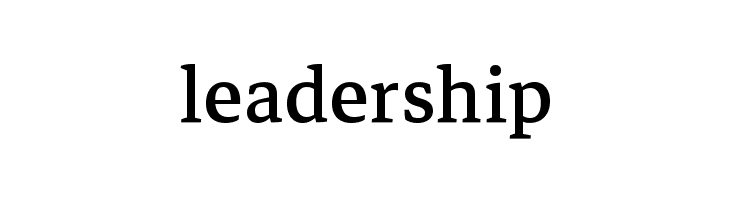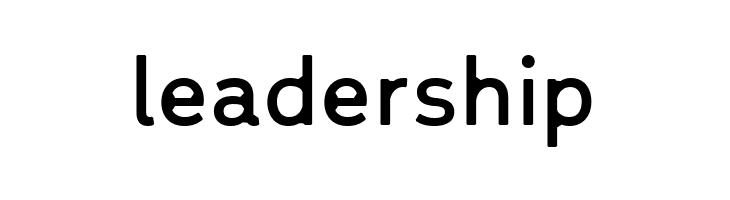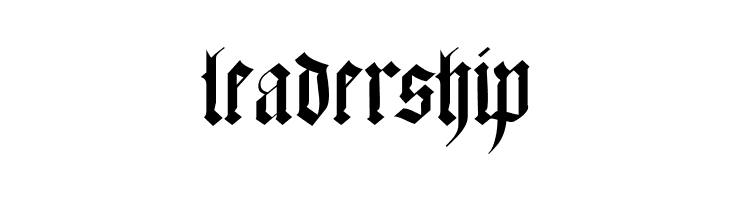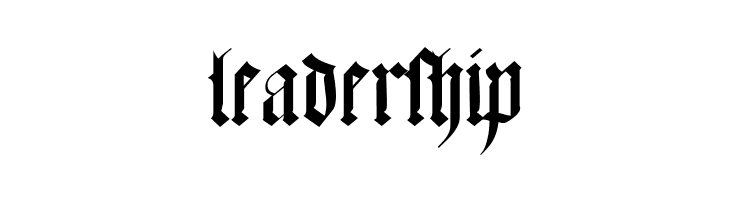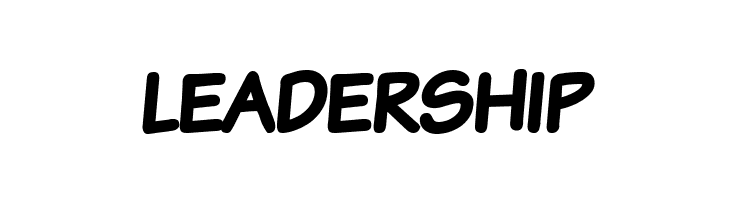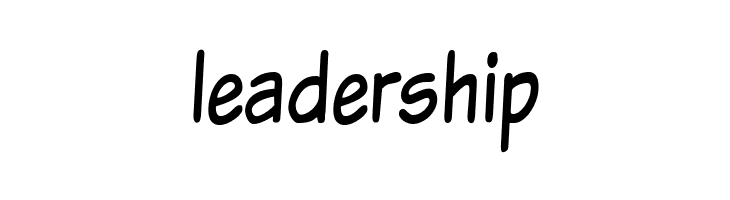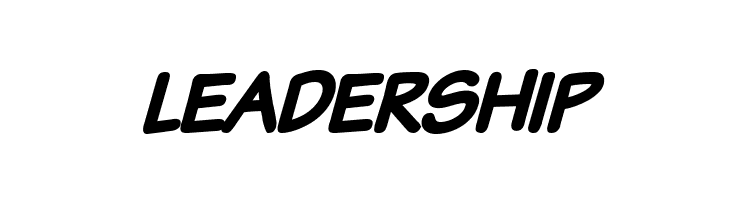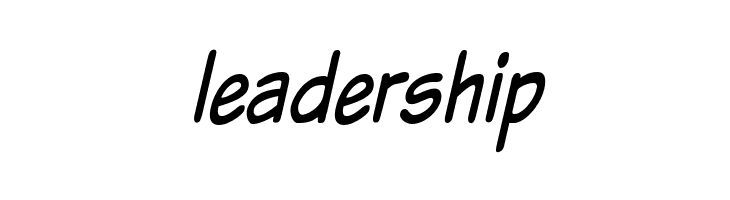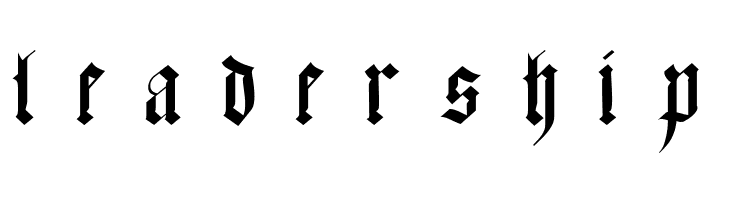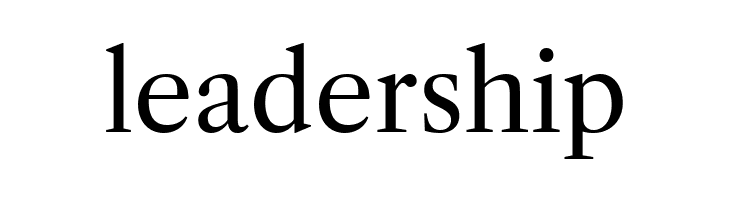
A bold, playful font with rounded, smooth letterforms.
A bold, italicized font with a playful and dynamic style.
A bold, italicized, handwritten font with a playful and dynamic style.
A playful, italicized handwritten font with smooth, rounded strokes.
A playful, bold font with rounded, cartoon-like characters and tight spacing.
A playful, handwritten font with rounded edges and a casual, friendly style.
A playful, handwritten italic font with bold, rounded characters.
A playful, handwritten-style font with bold, italicized characters and tight spacing.
A modern, clean sans-serif font with uniform strokes and geometric shapes.
A barcode-inspired font with high contrast and tight spacing, ideal for modern and technical designs.
A barcode-style font with geometric, structured lines for a modern, industrial look.
A barcode style font that replicates the look of traditional barcodes with clear, distinct characters.
A classic serif font with elegant and balanced proportions.
A bold, classic serif font with strong strokes and elegant serifs.
An elegant italic serif font with smooth, flowing lines and moderate contrast.
A futuristic, geometric font with consistent stroke width and unique dot elements.
A bold, classic serif font with strong strokes and moderate contrast.
A classic serif font with medium weight and moderate contrast, offering elegance and readability.
A modern serif font with balanced strokes and elegant serifs.
A classic serif typeface with semi-bold weight and medium contrast, ideal for formal text.
A decorative and abstract font with geometric shapes and intricate patterns.
A decorative blackletter font with intricate flourishes and bold, structured characters.
A classic serif font with elegant serifs and moderate contrast.
A bold, ornate blackletter font with a medieval aesthetic.
A bold and intricate Blackletter font with ornate, angular letterforms.
A bold Blackletter font with intricate, angular letterforms and a gothic aesthetic.
A traditional blackletter font with intricate, high-contrast strokes and ornate details.